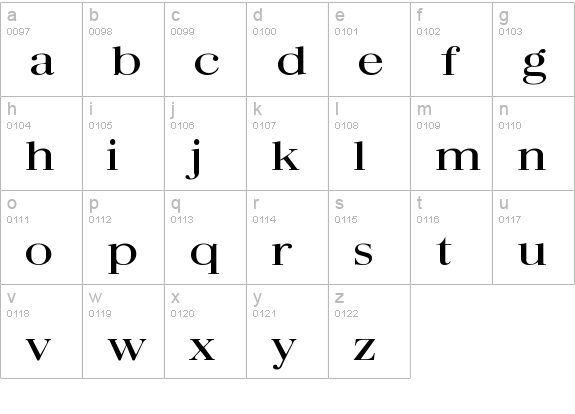
Quantas Broad Regular is the standard, neutral variant in the Quantas typeface family \xE2\x80\x94 well suited to general body text, paragraphs, and standard typographic work.
Introducing Quantas Broad Regular, a stunning font that effortlessly blends elegance with modernity. This versatile typeface is perfect for adding a touch of sophistication to any project, from logos and branding to headlines and body text. With its clean lines and balanced proportions, Quantas Broad Regular exudes a sense of professionalism and refinement. Its bold and distinctive letterforms command attention, while maintaining a sense of approachability. The wide spacing between characters ensures excellent legibility, even at smaller sizes. One of the standout features of Quantas Broad Regular is its versatility. Whether you're designing a sleek corporate identity or a stylish editorial layout, this font will effortlessly adapt to any aesthetic. Its timeless design allows it to seamlessly integrate into both traditional and contemporary designs. But what sets Quantas Broad Regular apart is its accessibility. This font is freely available to download at FontsMarket.com, making it easily accessible to designers and creatives alike. Its open availability allows for endless possibilities and creative exploration. So, if you're in search of a font that combines elegance, versatility, and accessibility, look no further than Quantas Broad Regular. Download it today at FontsMarket.com and unlock a world of design possibilities.